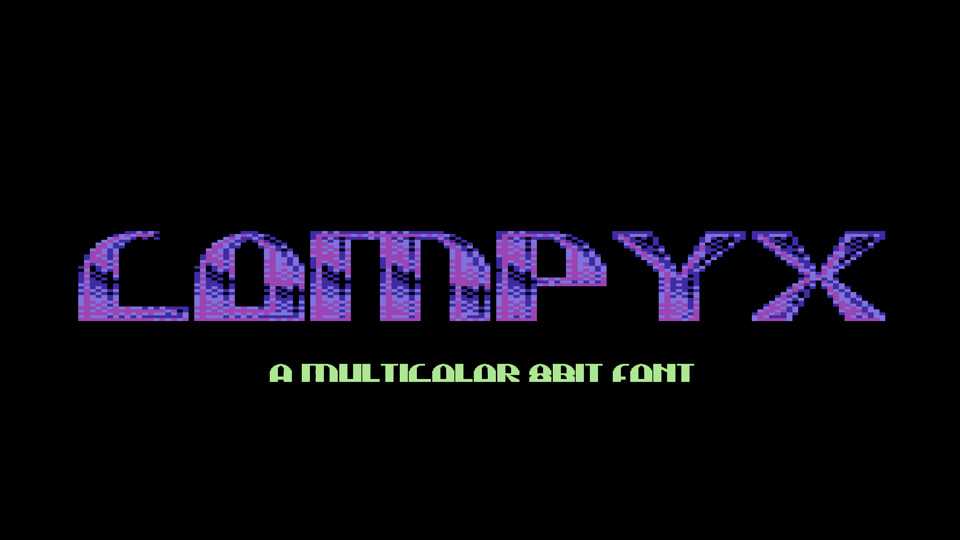
Download Compyx font, a 8-bit multicolor typeface based on the original design by Commodore 64 graphician Compyx of Focus. Compyx is featured by the four separate color layers as individual single-color TTF files, and the production-ready Compyx font in three different OpenType formats.